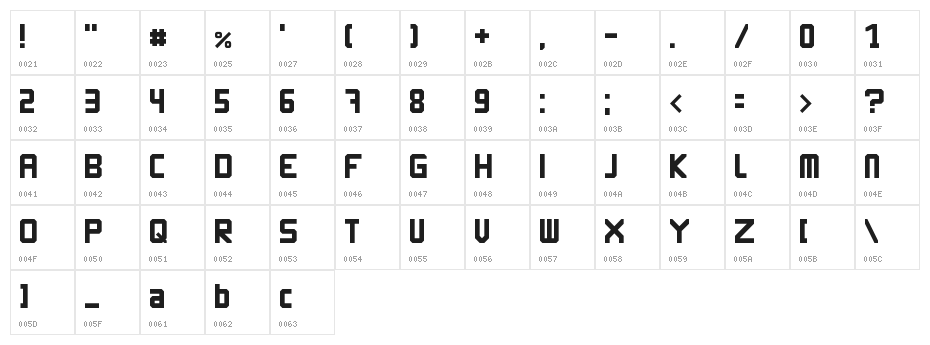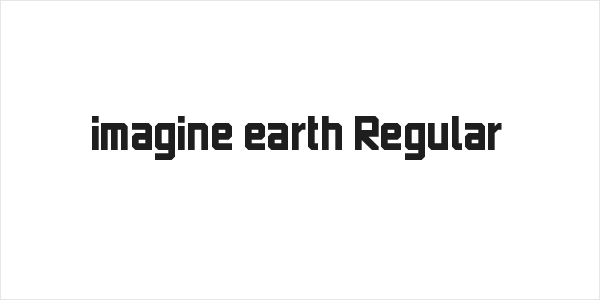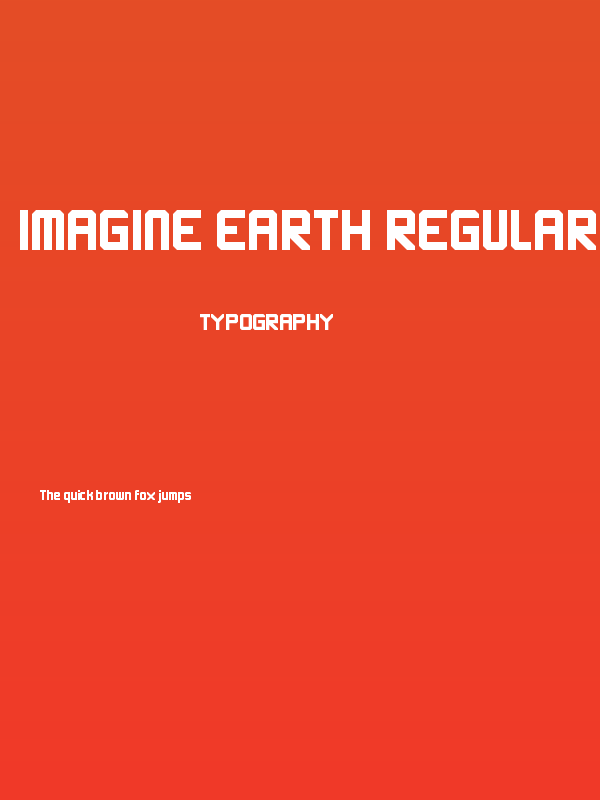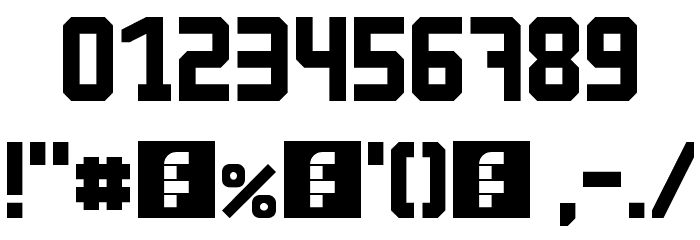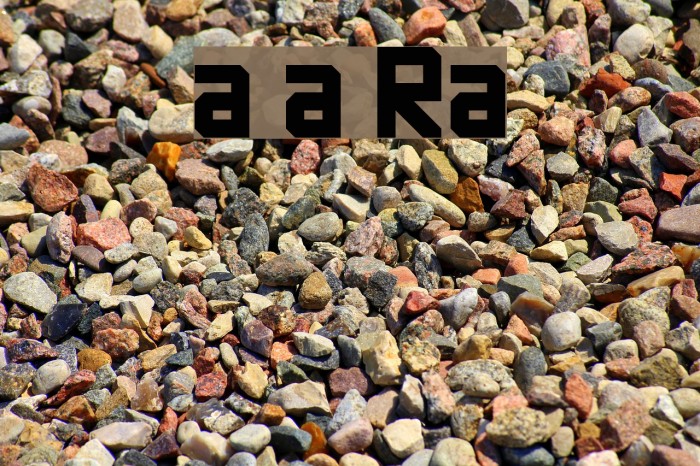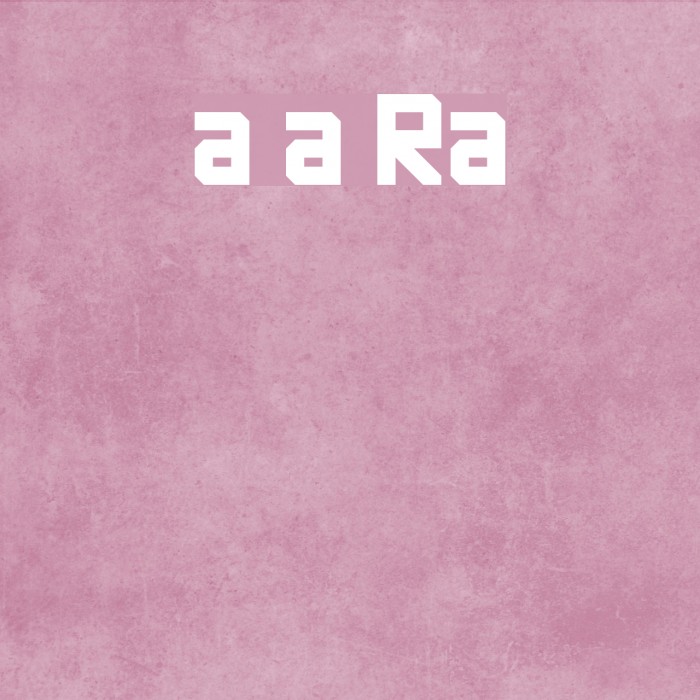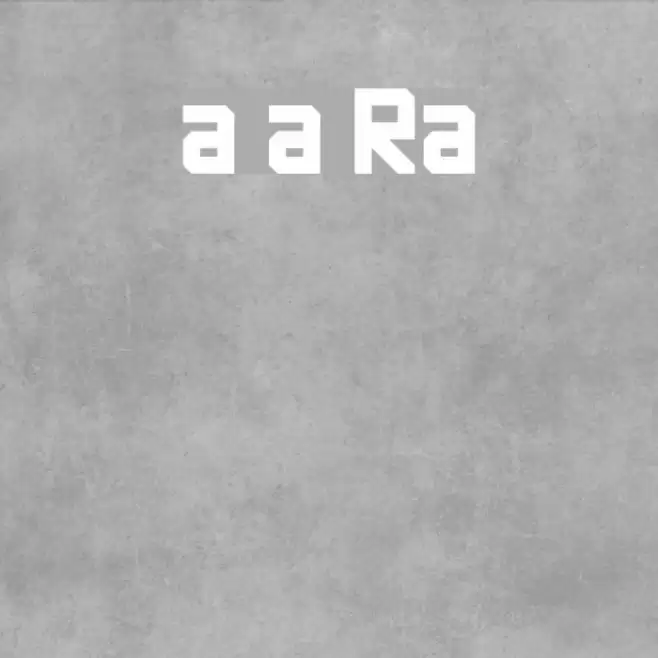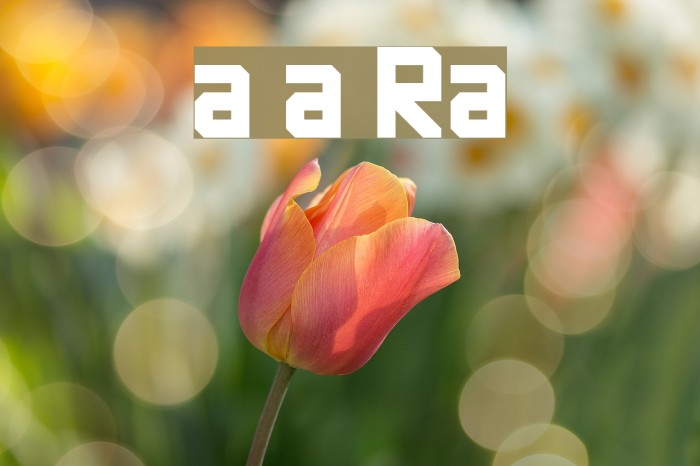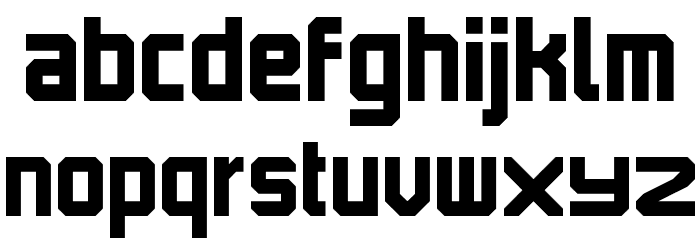
imagine earth Regular Font
imagine earth Regular Description
This font features a bold and geometric design, characterized by its blocky and angular letterforms. The uppercase and lowercase letters maintain a consistent width, creating a uniform appearance. The font's structure is reminiscent of digital or futuristic styles, with sharp edges and a solid presence. The numerals and special characters follow the same design principles, ensuring a cohesive look across all glyphs. Its strong visual impact makes it suitable for attention-grabbing applications.